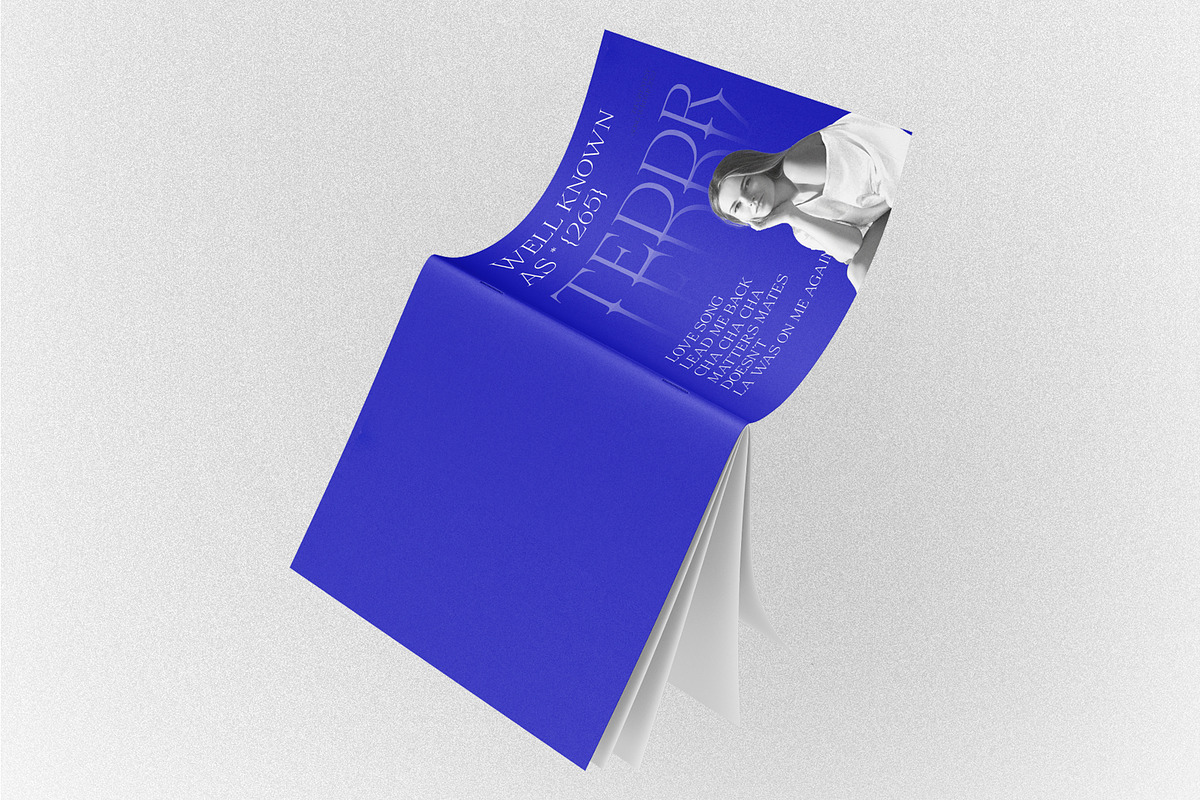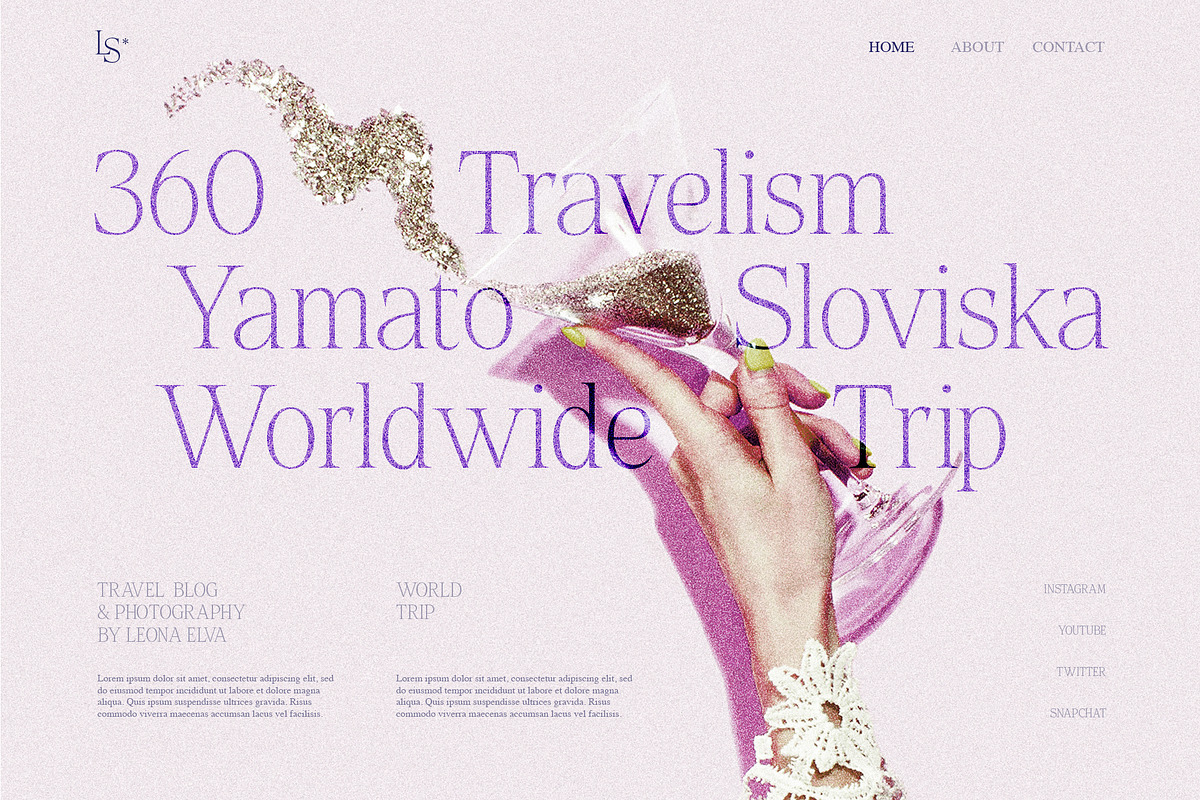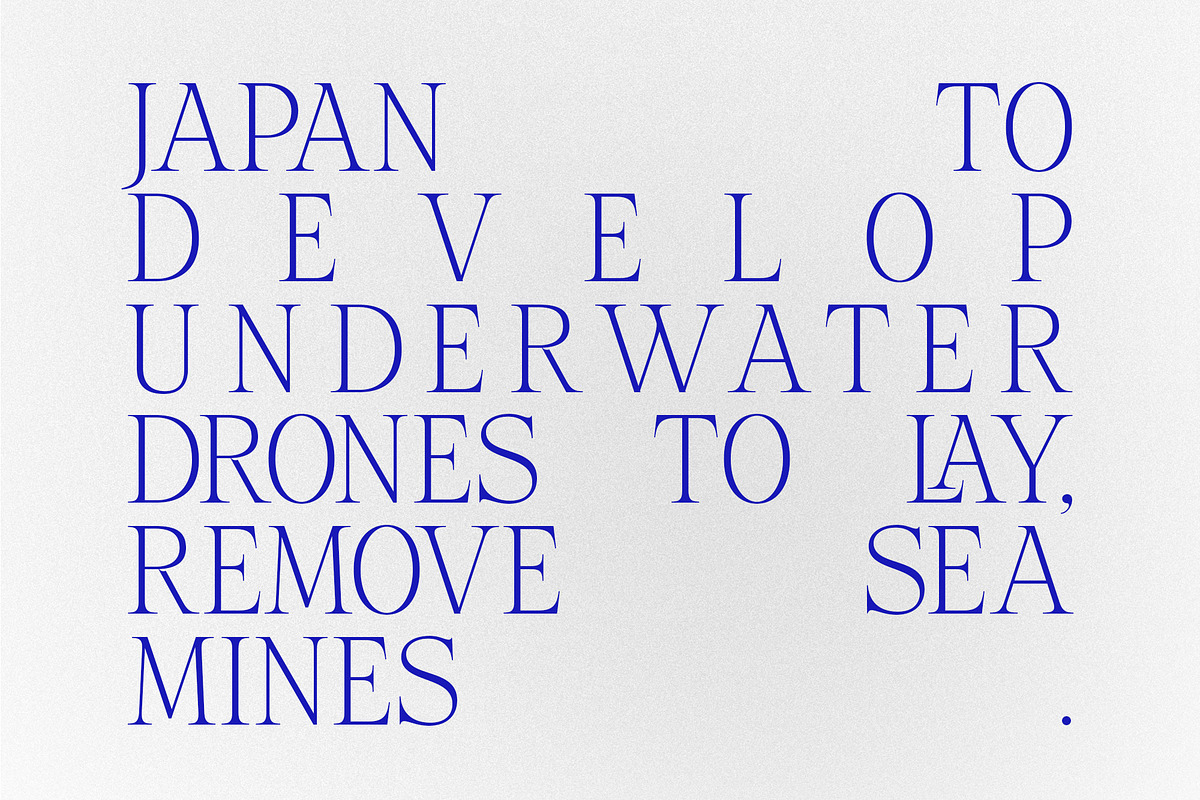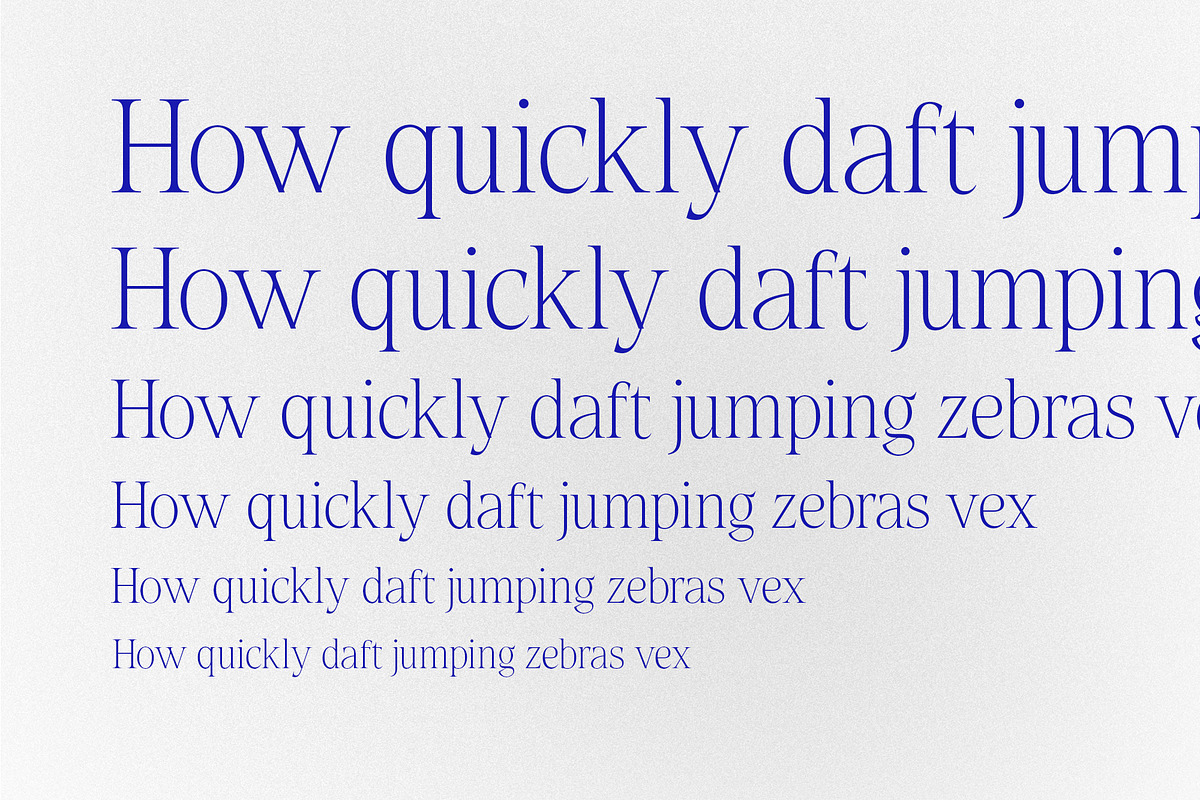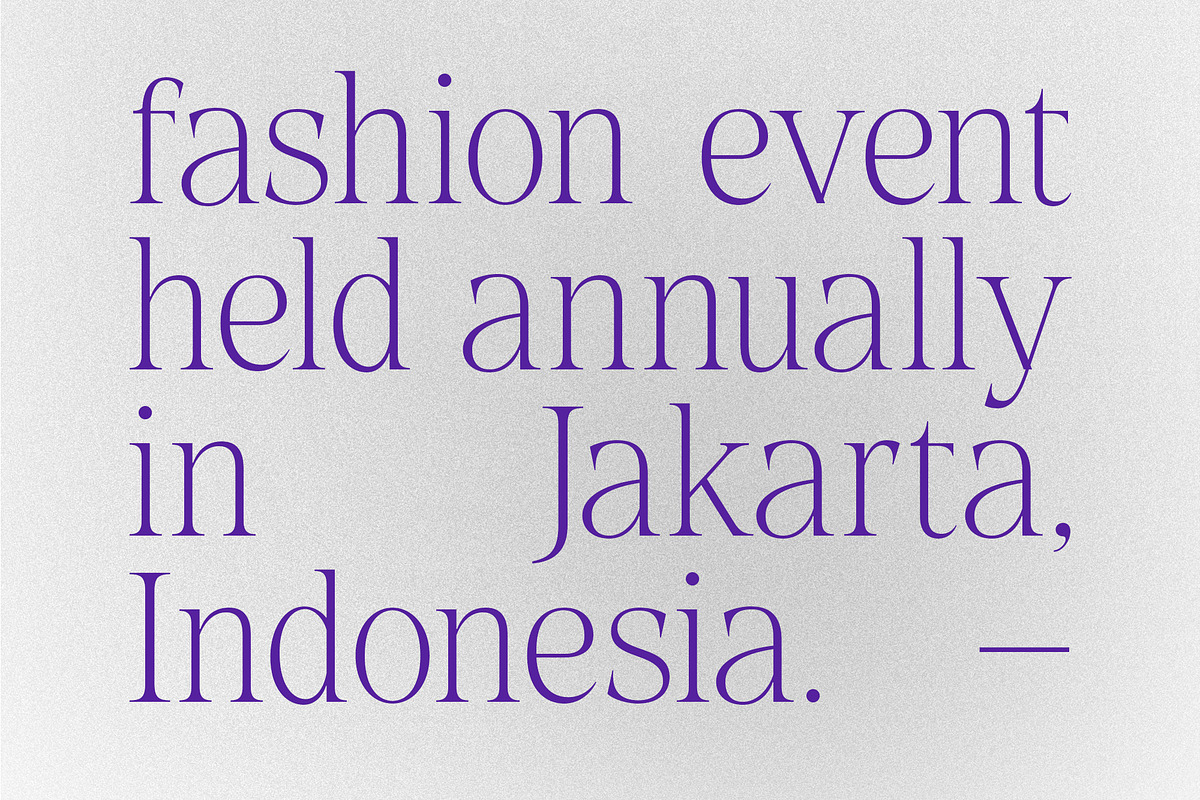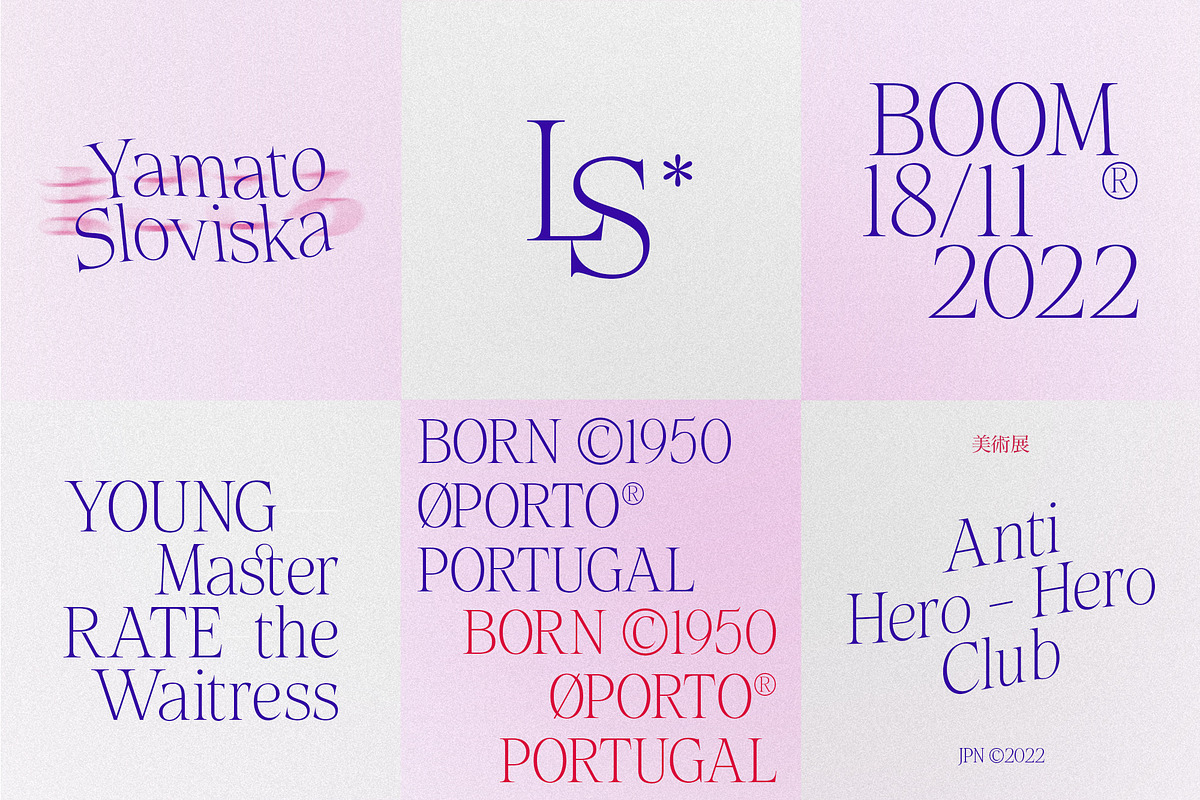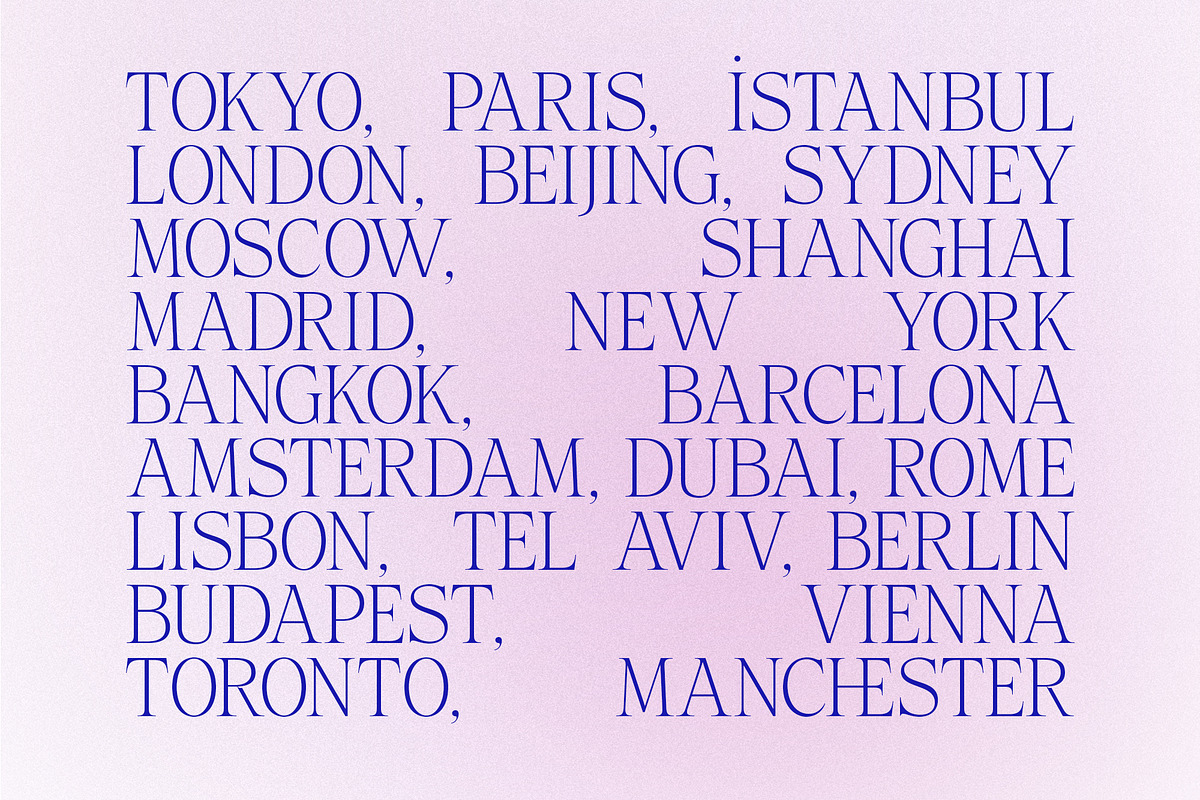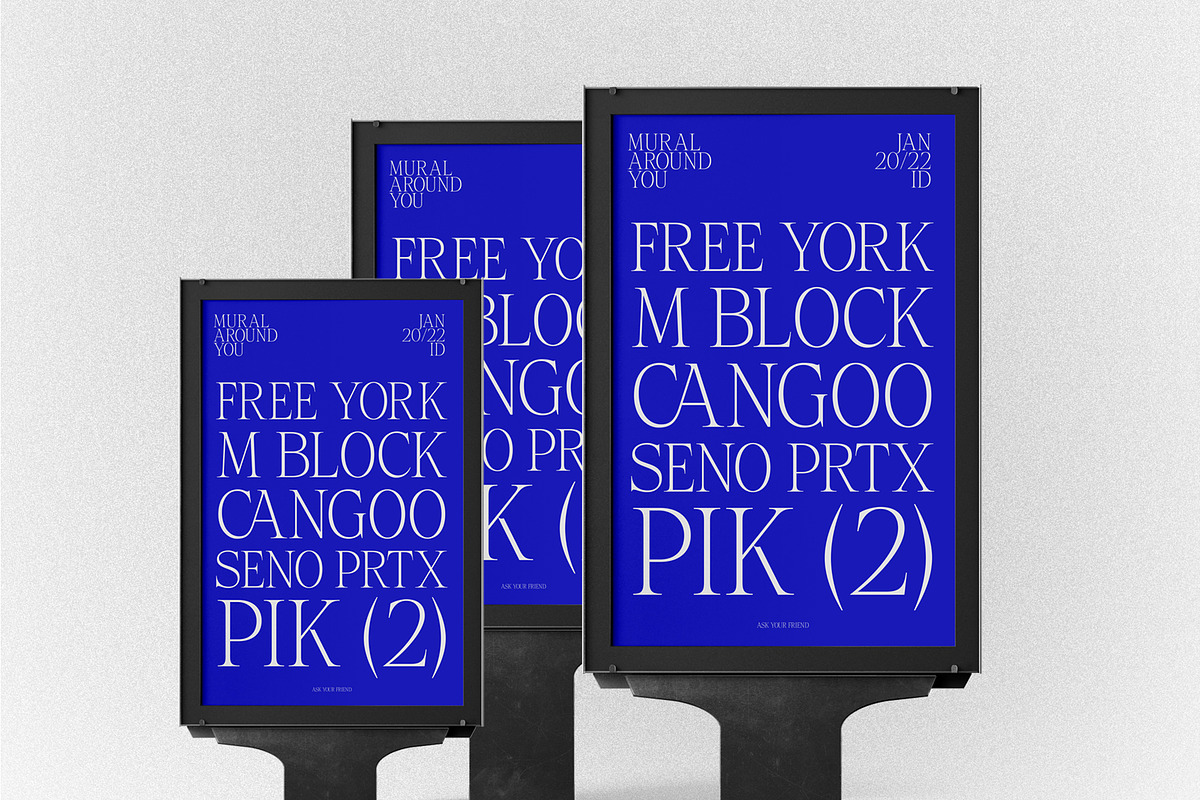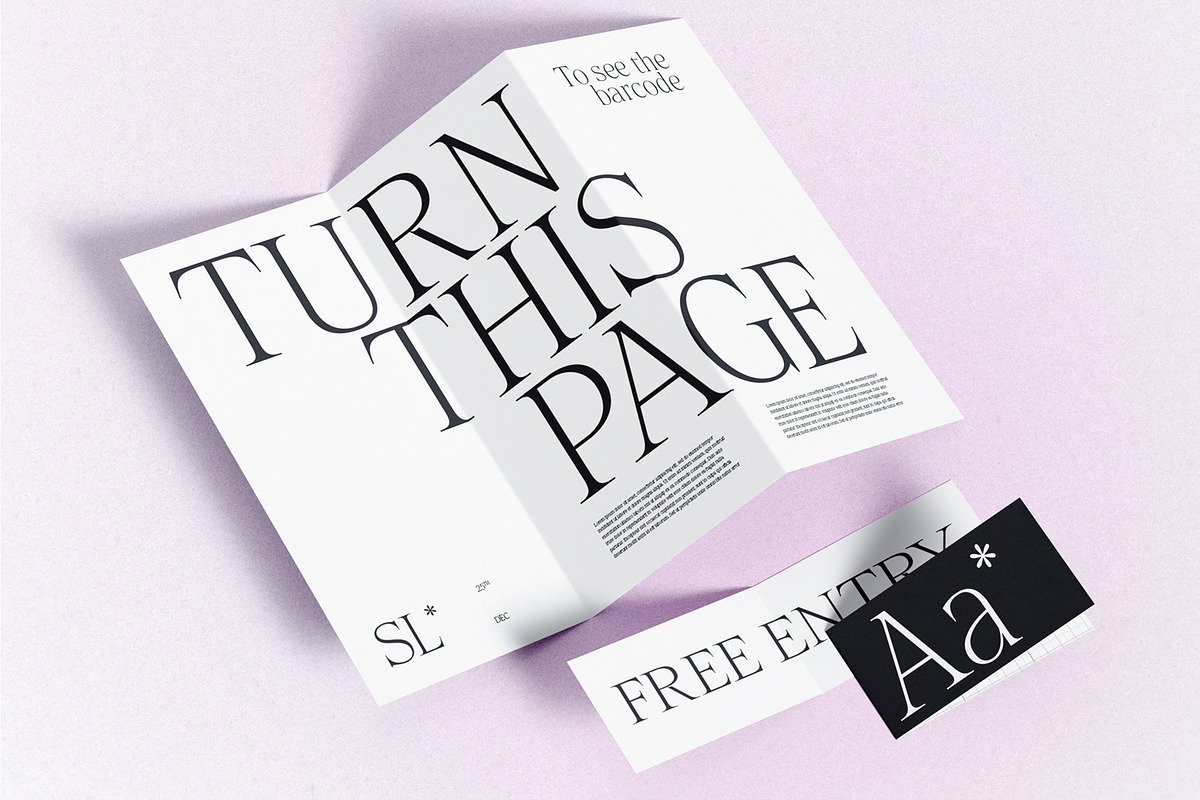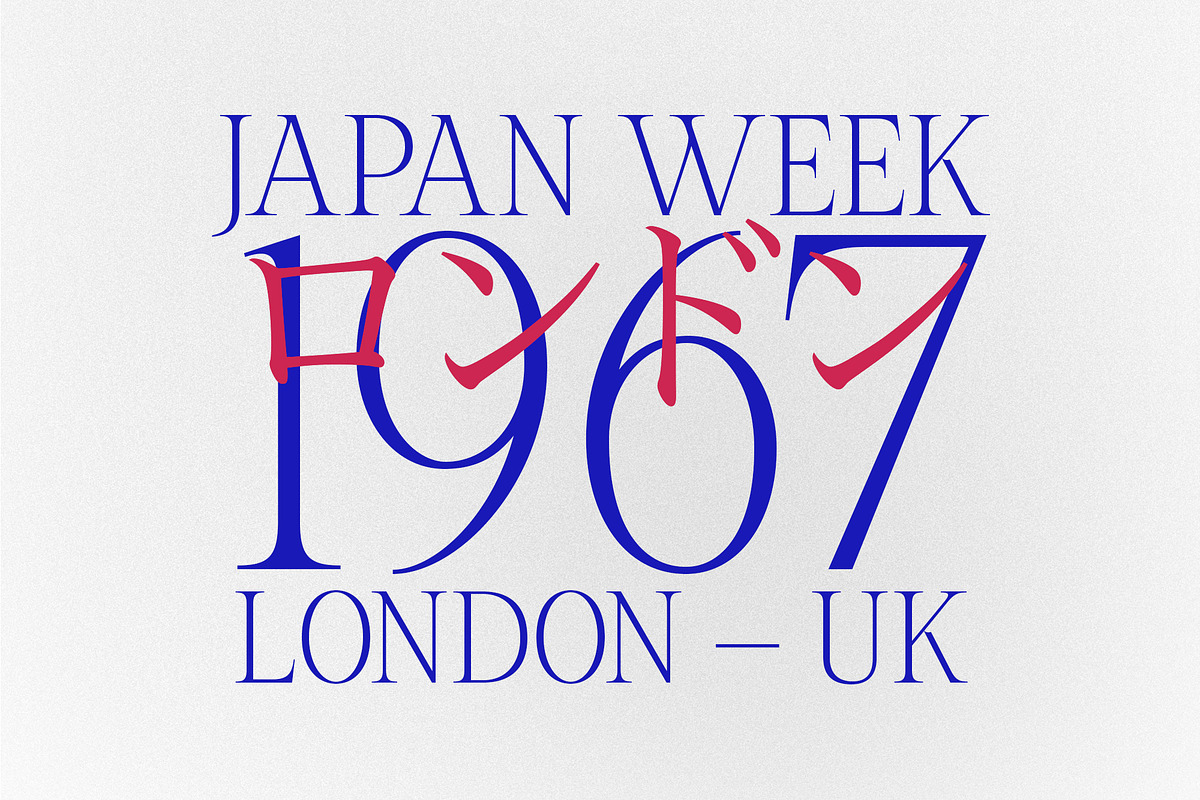
Magakoro Elegant Serif
Introducing Cas Magakoro
the ultimate Display Serif Oriental Typeface designed for those who seek a perfect blend of neo-classic elegance and snappy, feminine sharpness. Elevate your designs with dynamic and captivating letters that make Cas Magakoro ideal for headlines, display text, and branding. But that's just the beginning – this font boasts advanced OpenType features, including ligatures and alternate characters, adding a layer of sophistication to your creative projects.
Rooted in cultural heritage and Time-Honored Tradition, Cas Magakoro is more than a font; it's an authentic celebration of prosperity with a nod to the Edo period. The red and gold color scheme, symbolizing New Year and good luck, complements its innovative approach seamlessly integrating Japanese calligraphy and kanji into Latin alphabets. The Overshot protrusion through the vertical stem adds a touch of elegance, ensuring visual consistency that is both striking and impactful.
Versatility is at the heart of Cas Magakoro. Perfect for headers, graphic layouts, websites, packaging, logos, branding, album covers, and more, it brings a youthful, dynamic energy to any project. The font's functionality extends beyond aesthetics; it's a future-forward choice with hi-tech elements, promising a memorable and expressive user experience.
Multi-language for western Latin characters and Latin for Asia, Oceania and Africa, in addition to Cas Magakoro functionality for more segmented purposes.